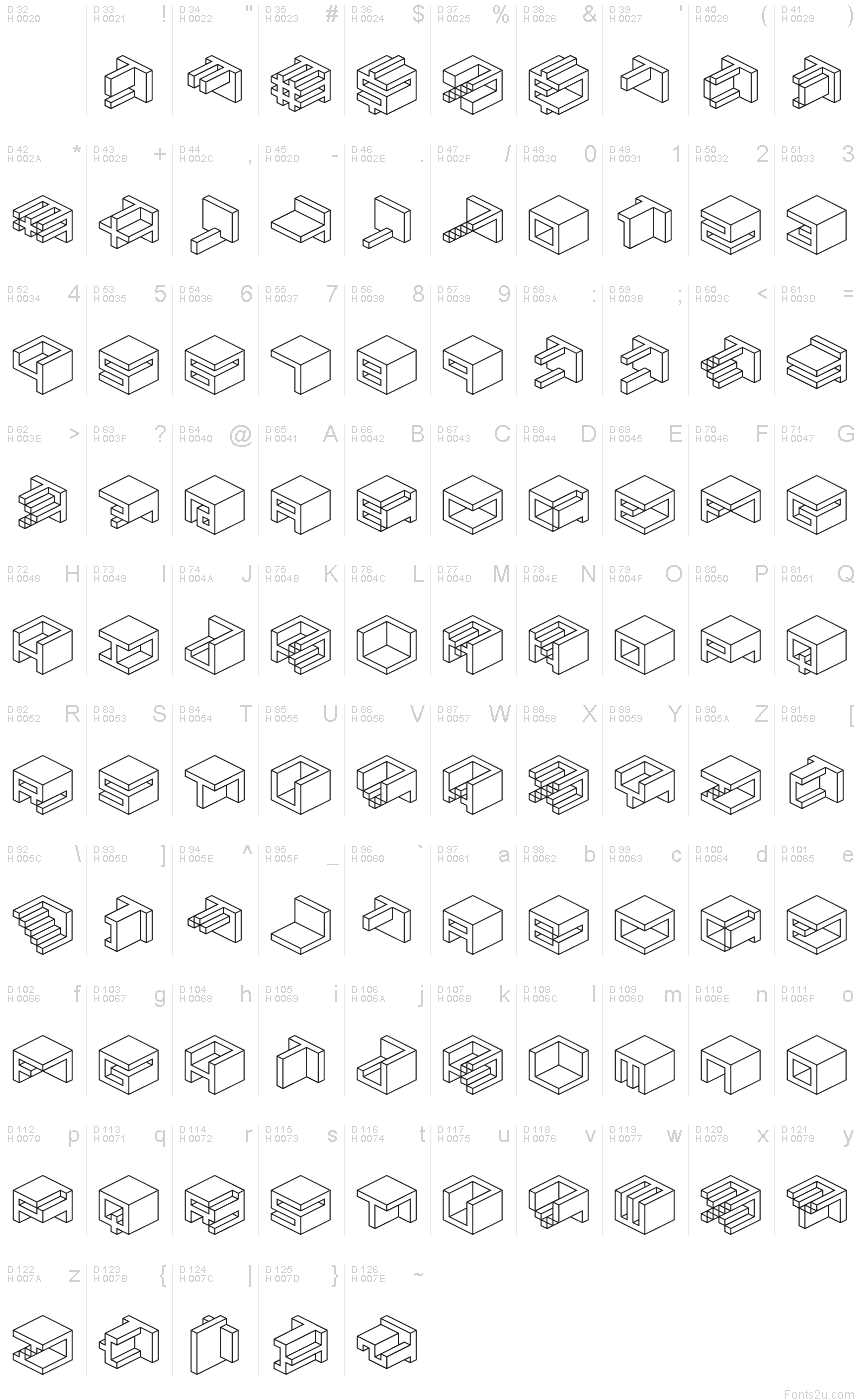
Qbicle 1 BRK
Qbicle 1 BRK by AEnigma Fonts is a free 3D geometric display font built from open cube forms and crisp isometric angles. The letters feel like wireframe blocks folded in space, with repeated box edges, cutaway faces, and a light architectural rhythm that gives the alphabet a playful, constructed look.
It fits poster headlines, game logos, tech flyers, zine covers, and title cards where a free font with real spatial character can do the visual work fast. Because the design reads as stacked and hollow at the same time, it also suits short monograms, section markers, and other brief display spots that benefit from that cube-built illusion.